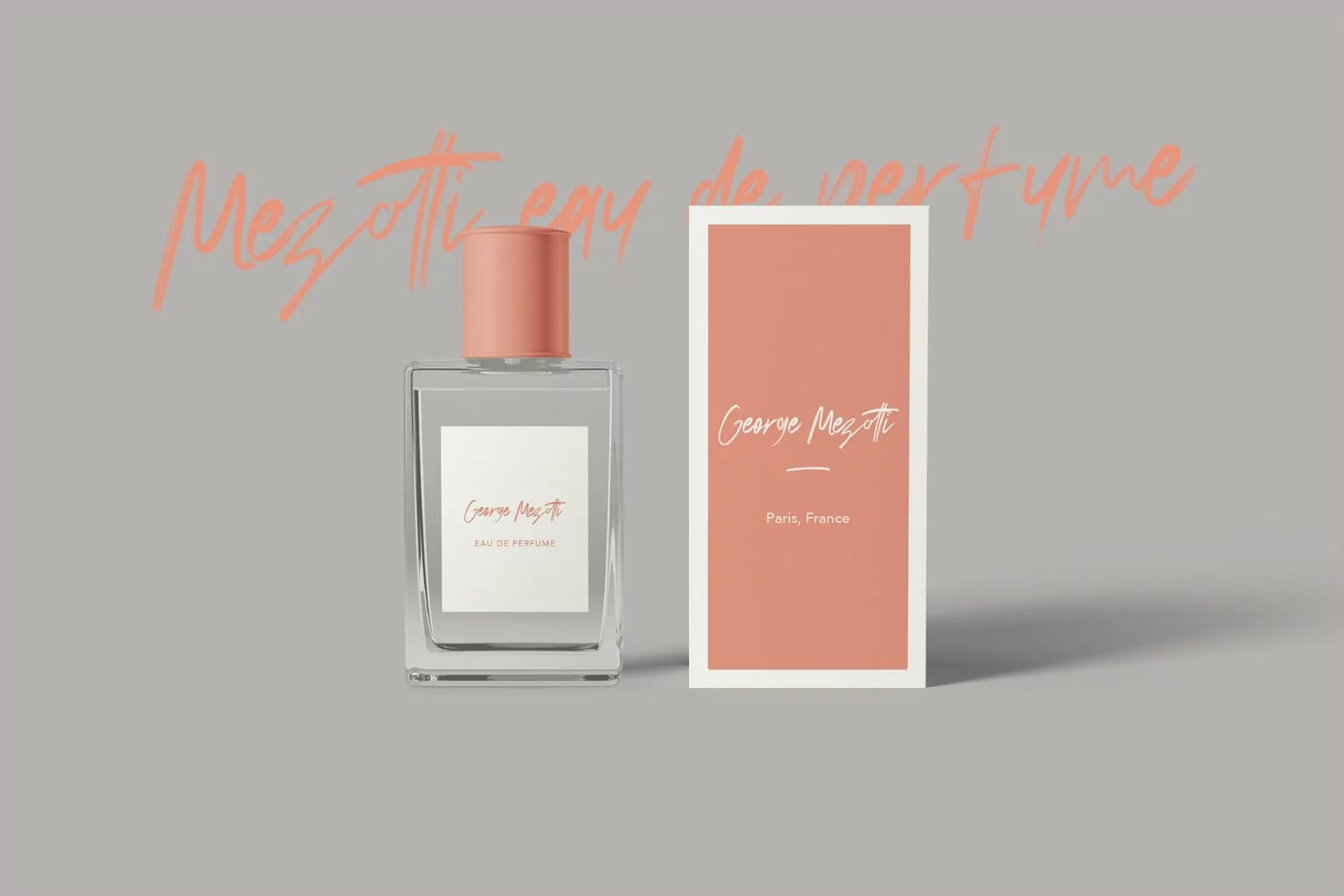
Dillemma Handwritten Brush Font Extra Swash
Give your designs an authentic handcrafted feel. Dillemma Handwritten Brush Font Extra Swash is perfectly suited to logo, stationery, branding, typography quotes, magazine or book cover, website header, clothing, branding, packaging design, restaurant and more.